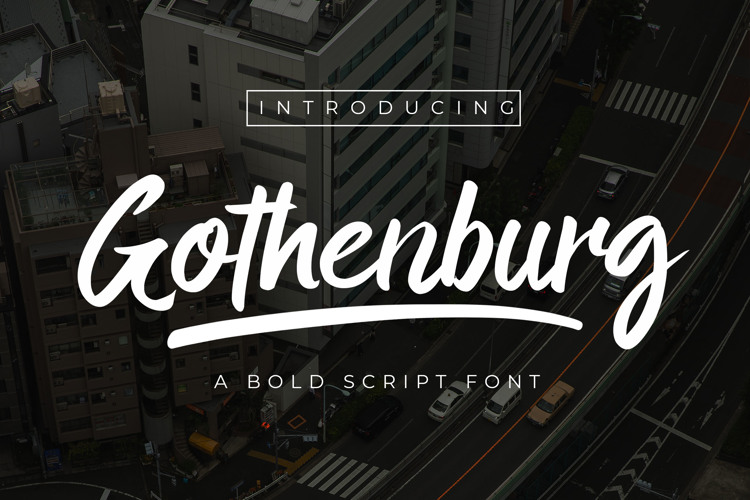
Gothenburg Font
gothenburg font is a bold script font with a touch of hand that is elegant and looks modern.
This font is suitable for photography, branding, watermarks, posters, and is perfect for making logos.
This font really helps you to make a design that is cooler and looks different from the others.